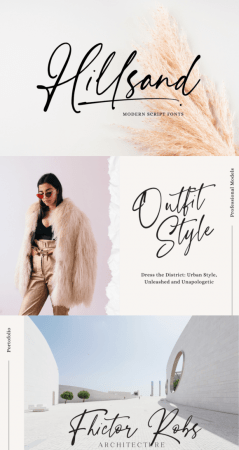
CF - Hillsand Font 93189860
Introducing Hillsand, a signature script font that effortlessly blends natural elegance with personal flair. With its flowing strokes and organic feel, this font mimics the authenticity of a handwritten signature. Perfect for projects requiring a touch of sophistication and individuality, such as branding, logos, or personalized stationery, Hillsand adds a unique and memorable signature-style touch to your designs, infusing them with a genuine and intimate feel.